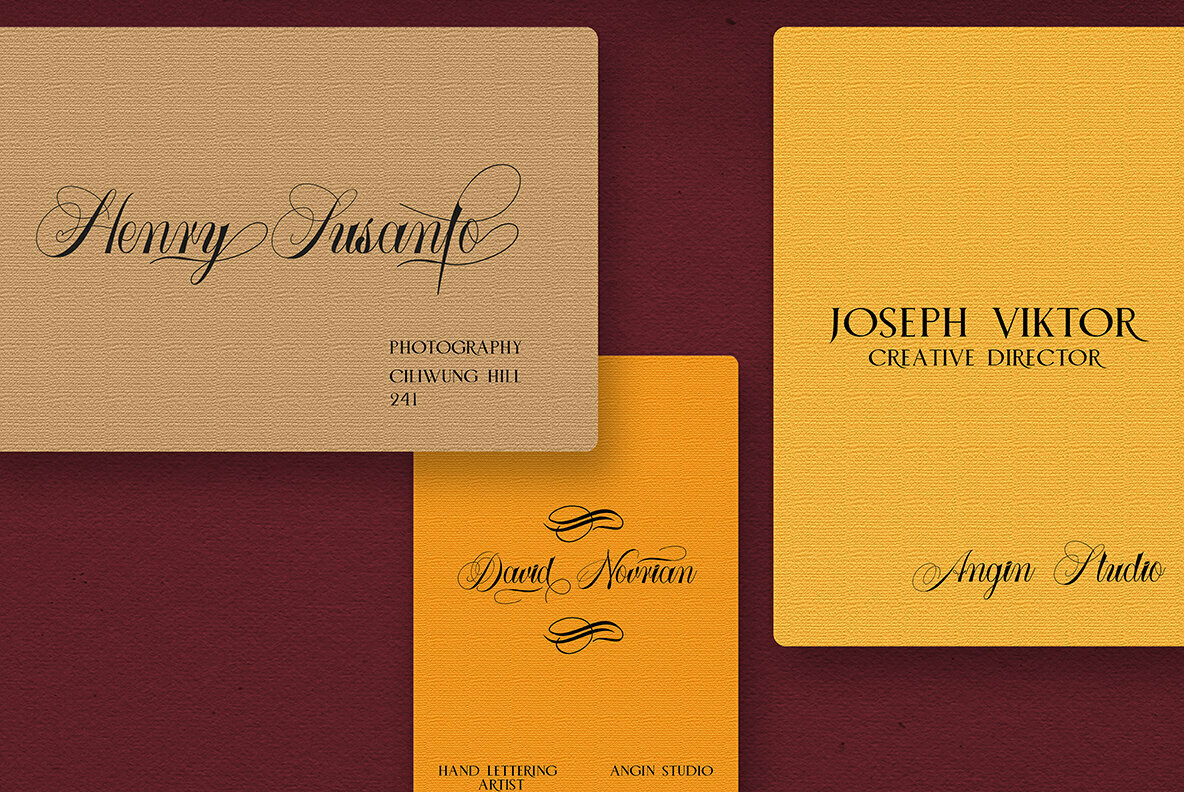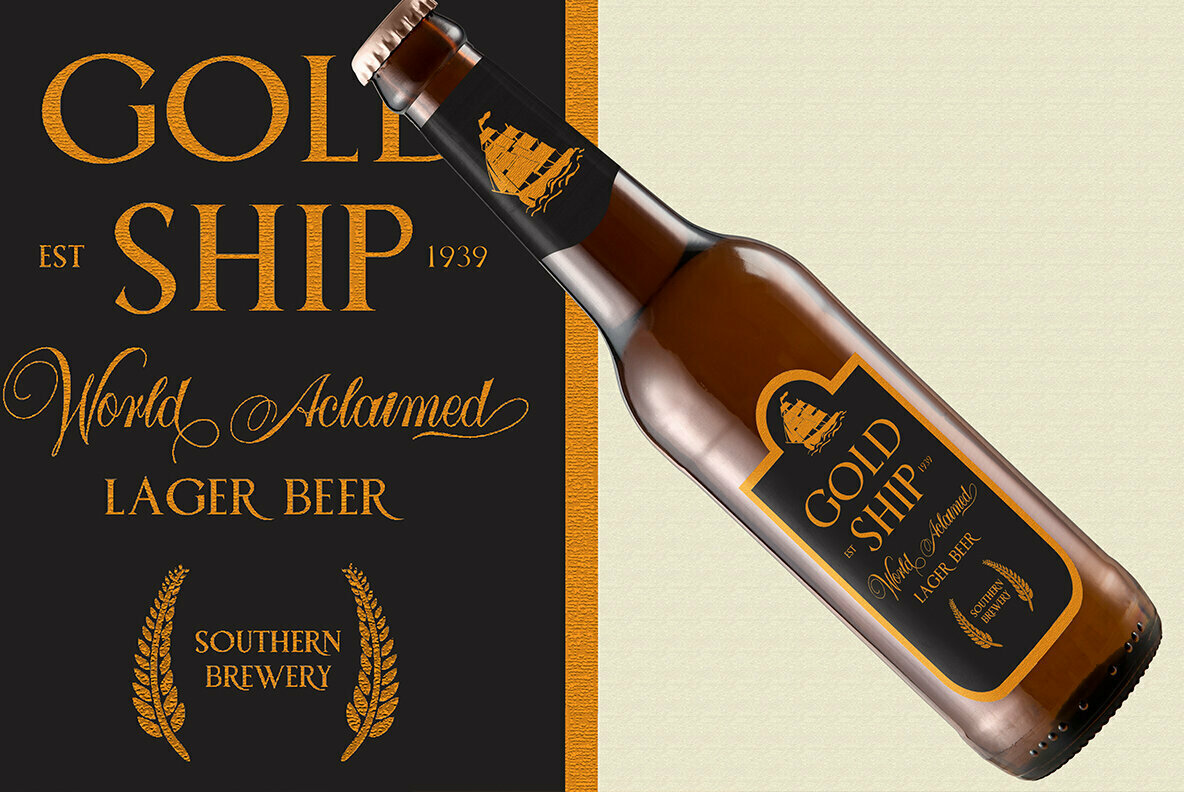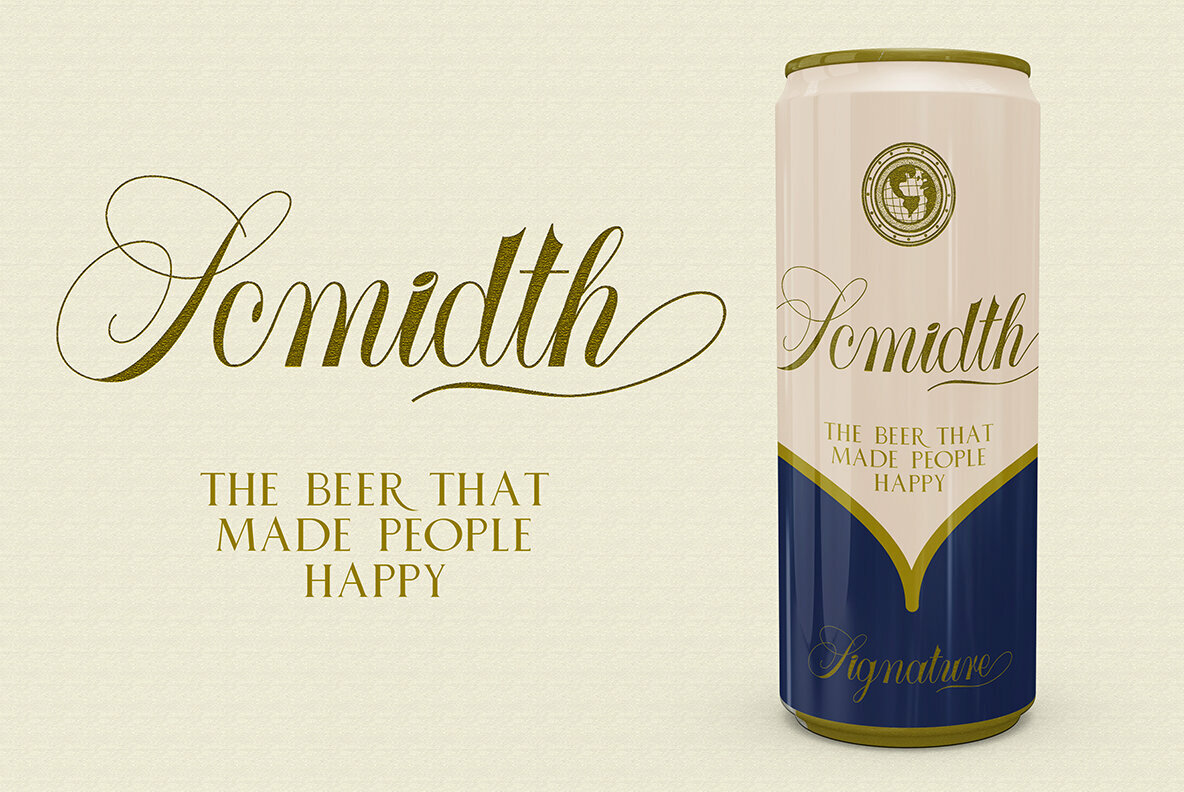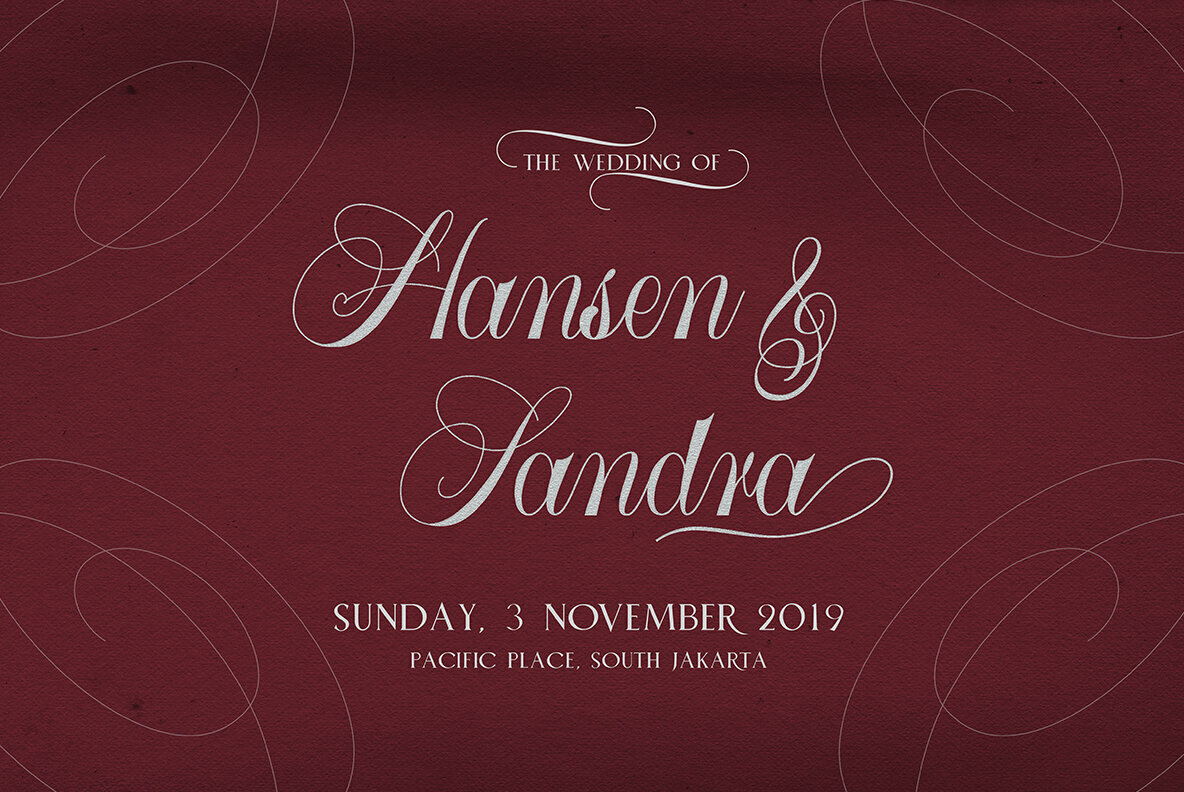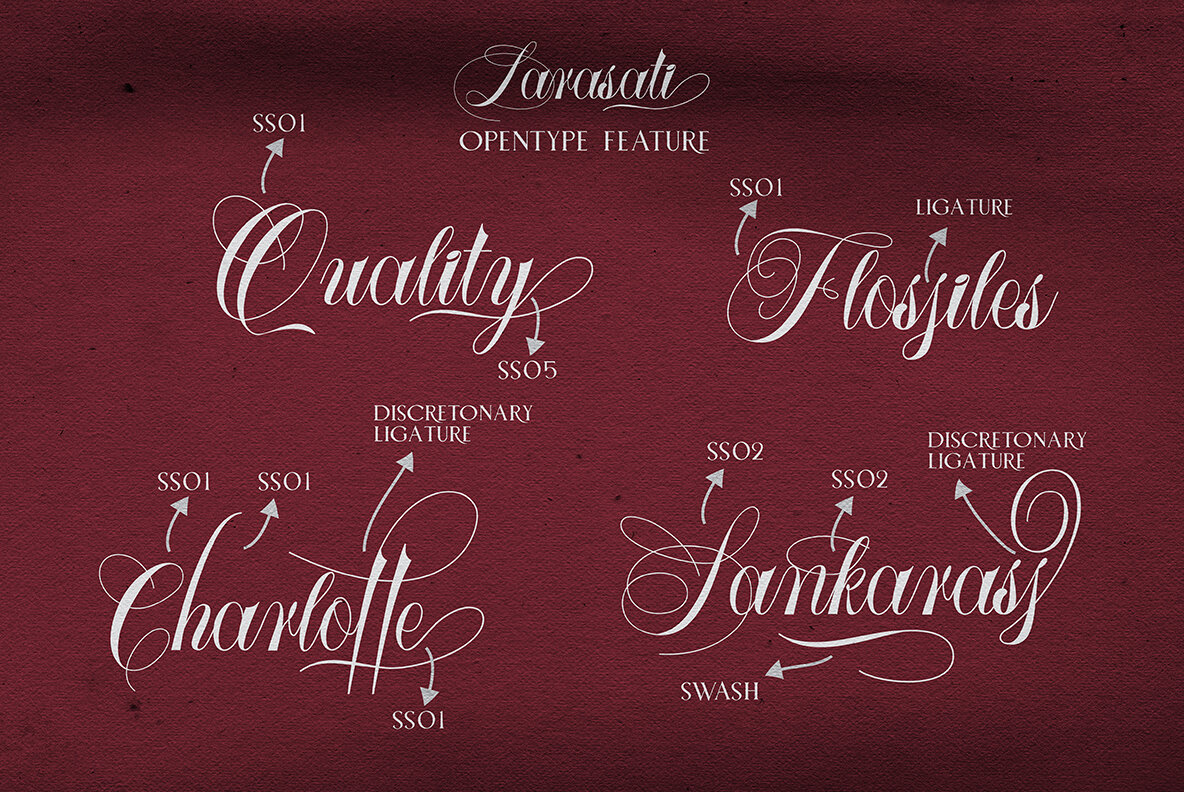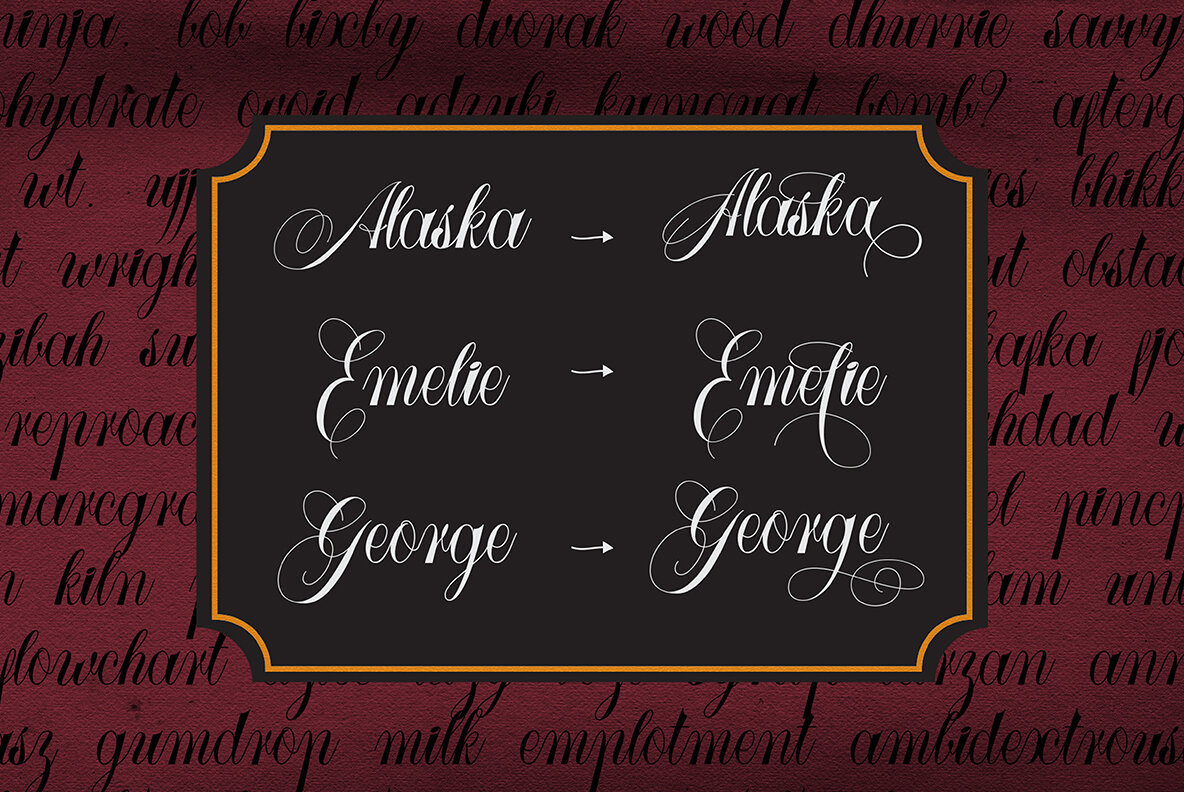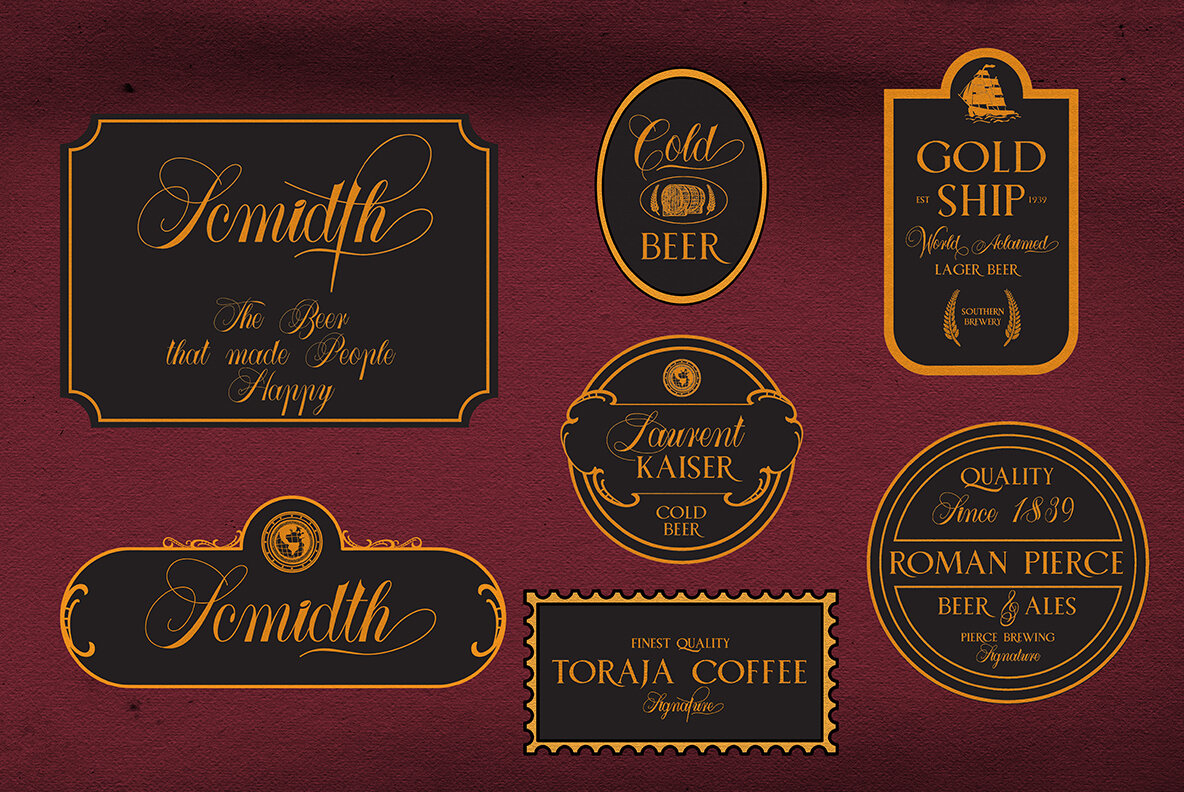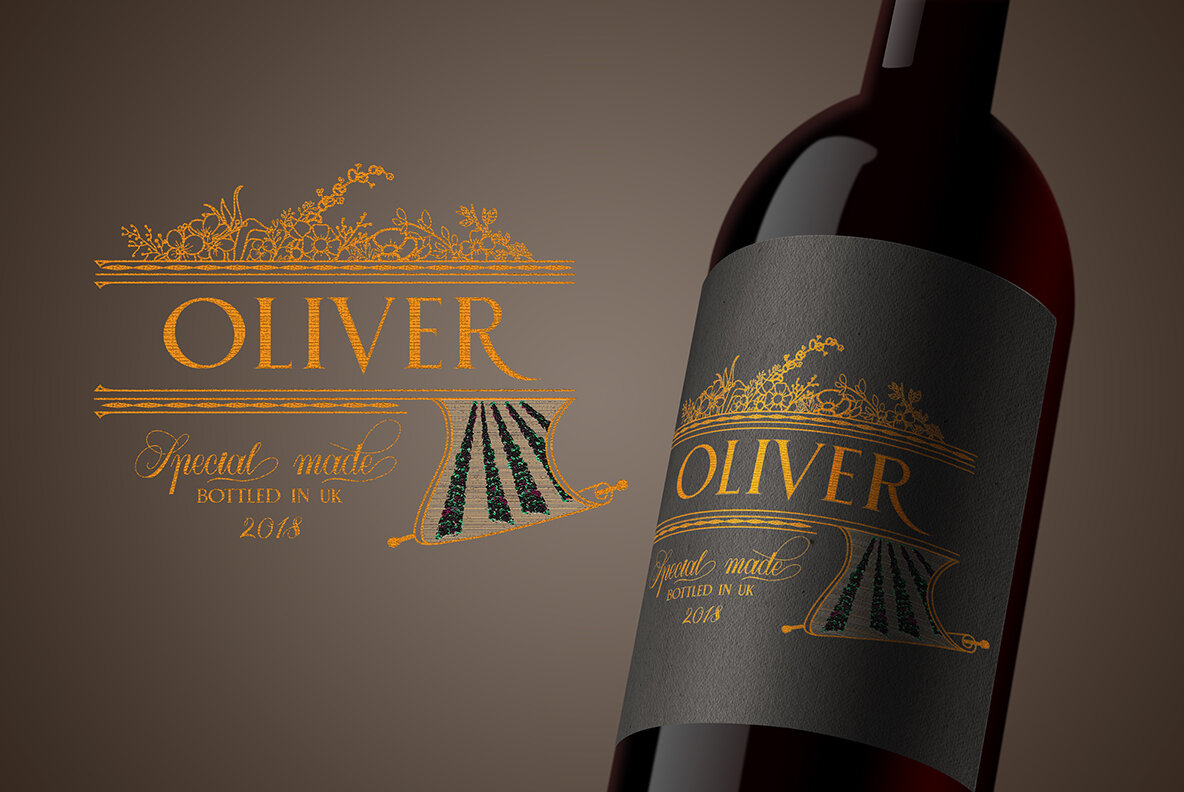
Larasati Font Duo
Larasati Font Duo with Extras (2 fonts)
Embrace the timeless charm of wine and beer labels with Larasati, a script font that marries traditional elegance with contemporary flair. Carefully designed with inspiration from classic oblique calligraphy and the intricate flourishes of Spencerian script, Larasati offers a luxurious touch suitable for a variety of designs. Complementing Larasati is Rebeque, a serif font grounded in Roman typographical traditions. Together, these fonts create a harmonious duo, ideal for sophisticated branding and personal projects alike.Larasati Font Duo: A Classic Script and Serif Pairing